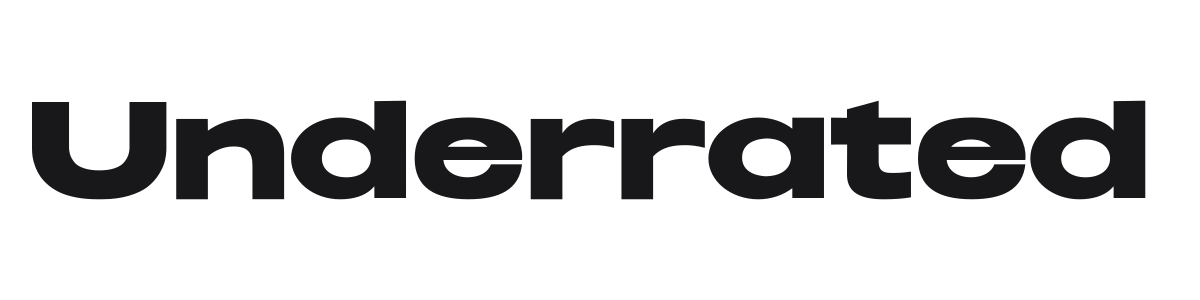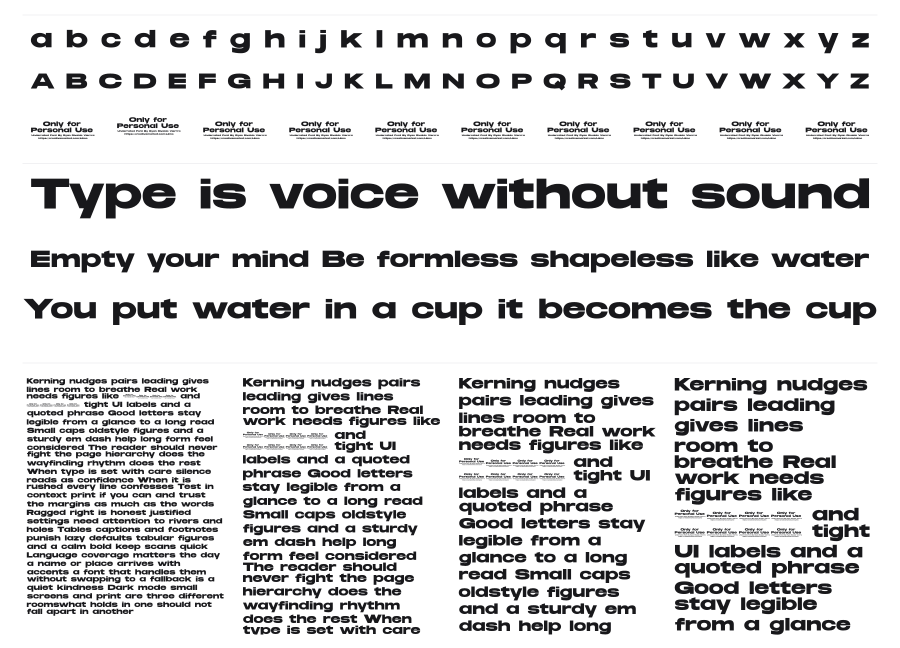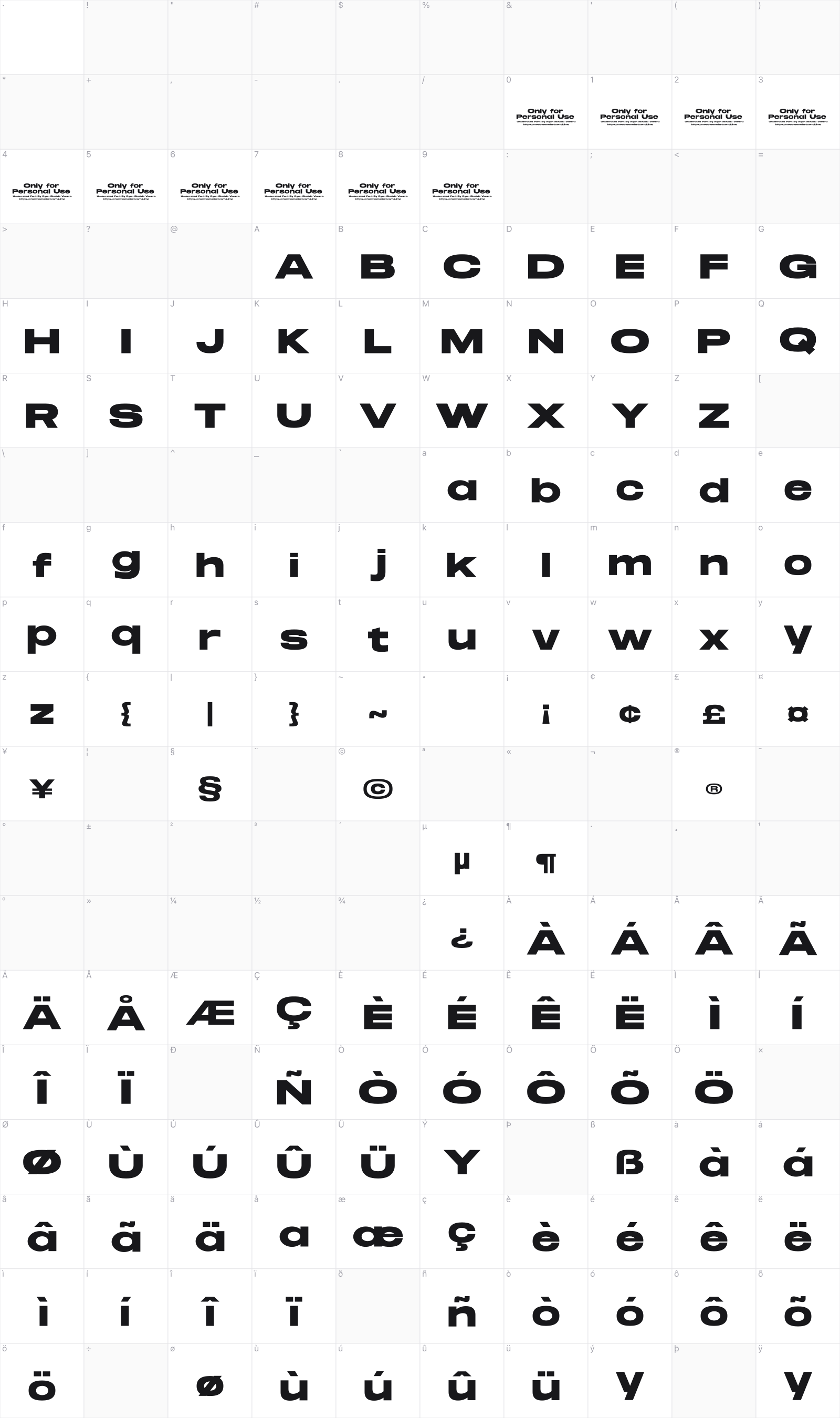
Underrated
Underrated is a bold geometric sans with wide proportions and rounded terminals that give it a modern, assertive presence. The heavy weight and clean monoweight construction make it a strong choice for headlines, brand marks, and poster work. It sits comfortably in the space between a polished grotesque and a contemporary display face.